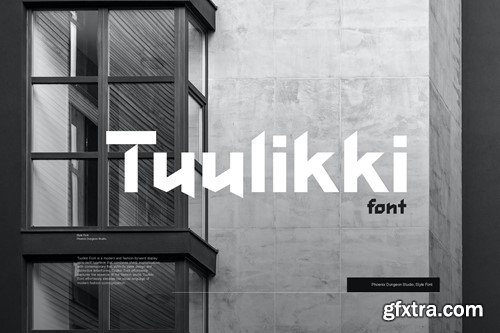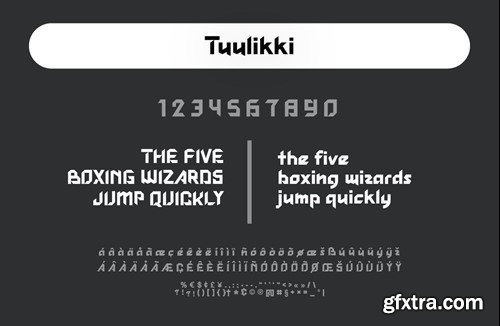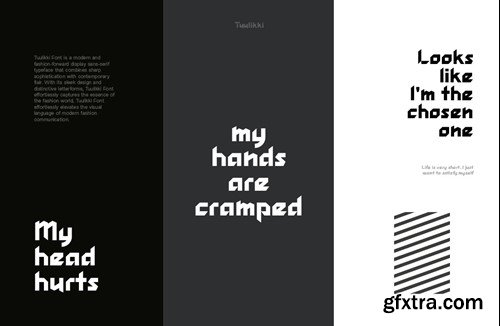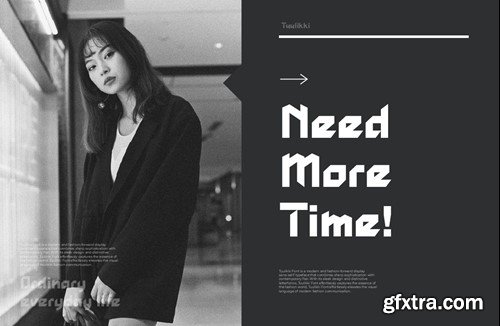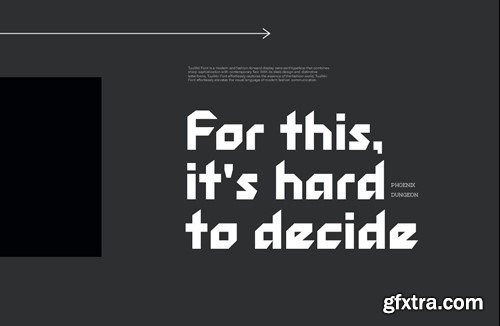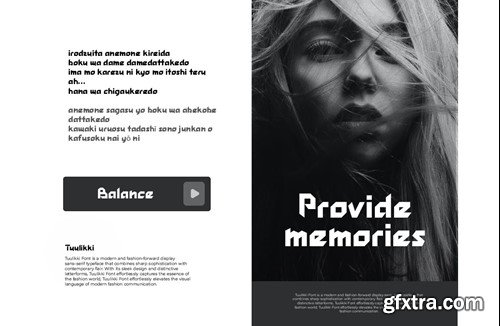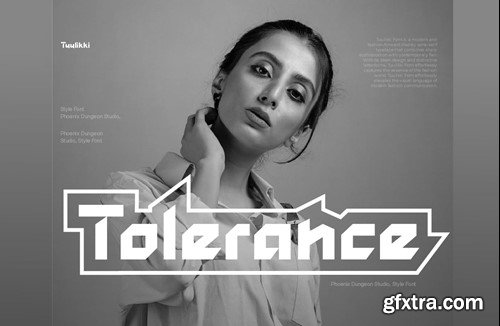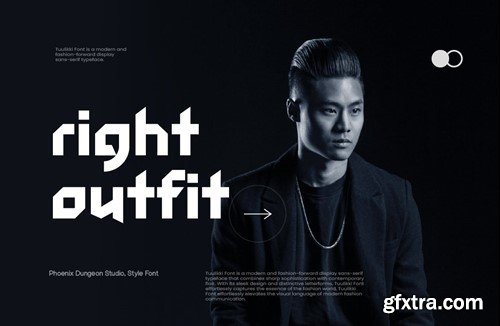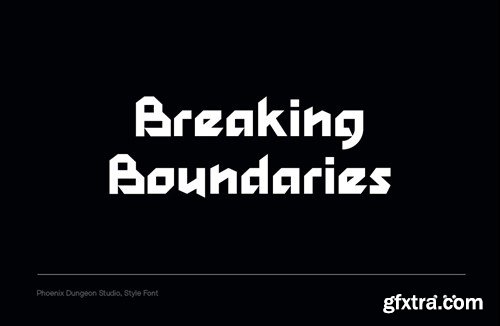
图卢基字体 49MJBAF
Tuulikki Font
Tuulikki Font is a modern and fashion-forward display sans-serif typeface that combines sharp sophistication with contemporary flair. With its sleek design and distinctive letterforms, Tuulikki Font effortlessly captures the essence of the fashion world, Tuulikki Font effortlessly elevates the visual language of modern fashion communication. What’s in the package : Thank you